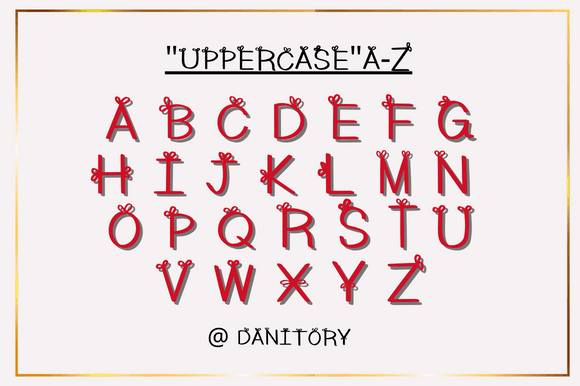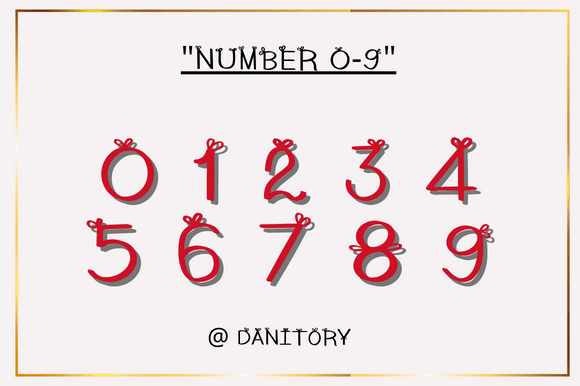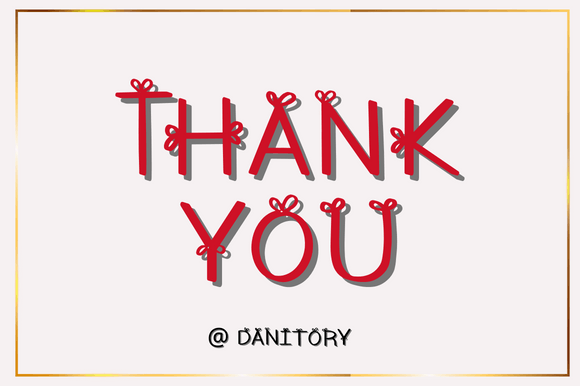
Introduction to Bowky Font
Bowky is a rendering font with a gentle, sweet character.
There are details decorated with cute bows which you can apply to upcoming festivals or special days To use as decorations to make gifts or to accompany your work, such as crafts, digital designs, presentations, or greeting cards.